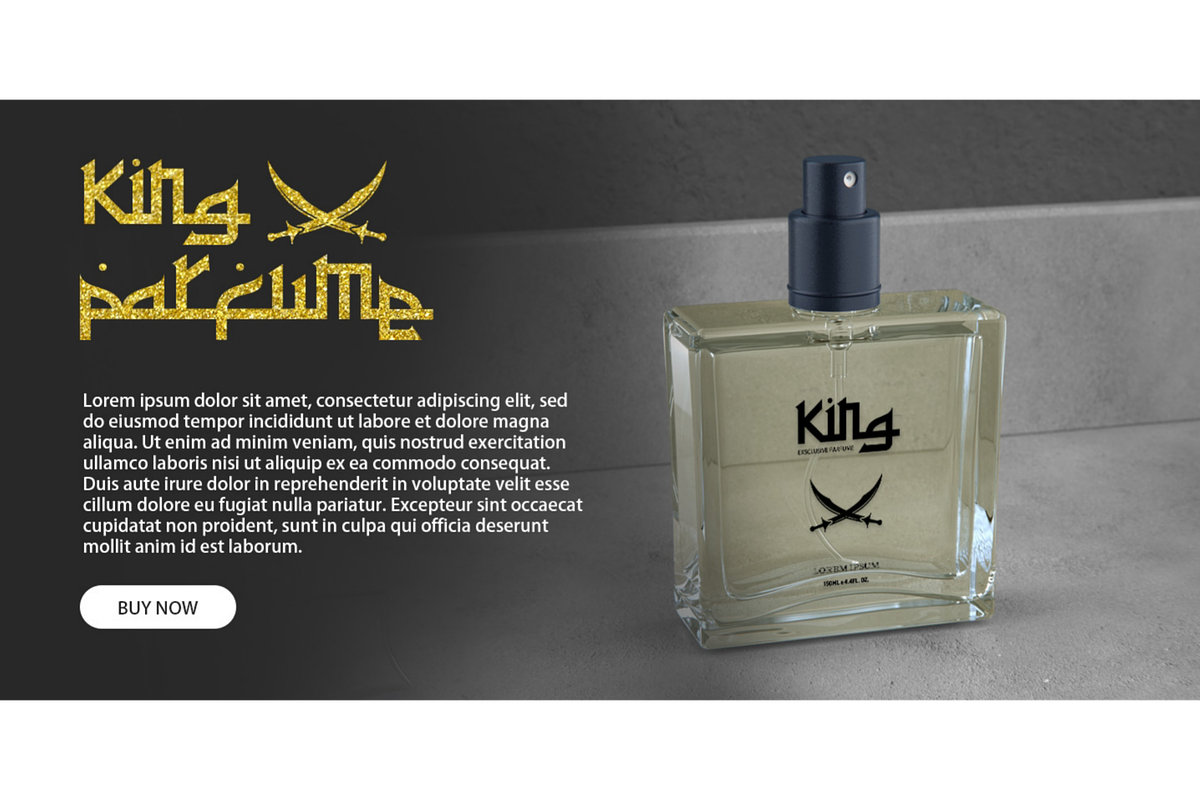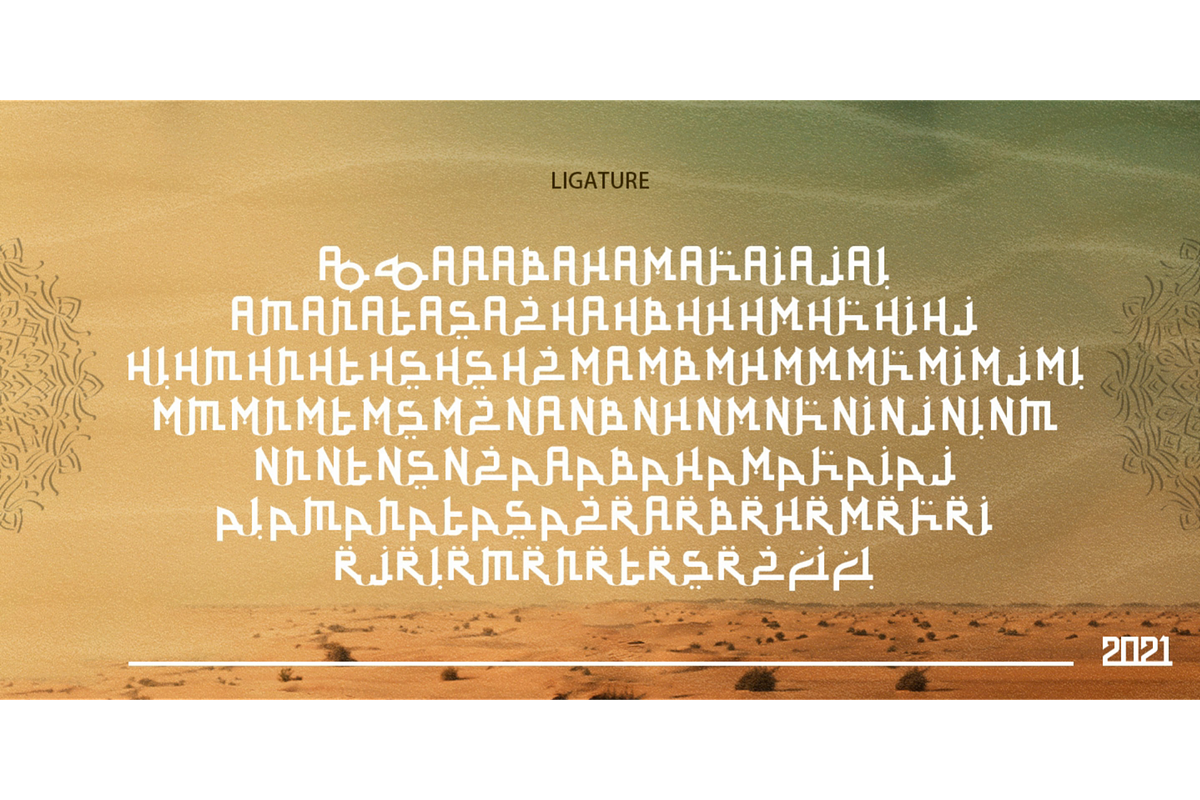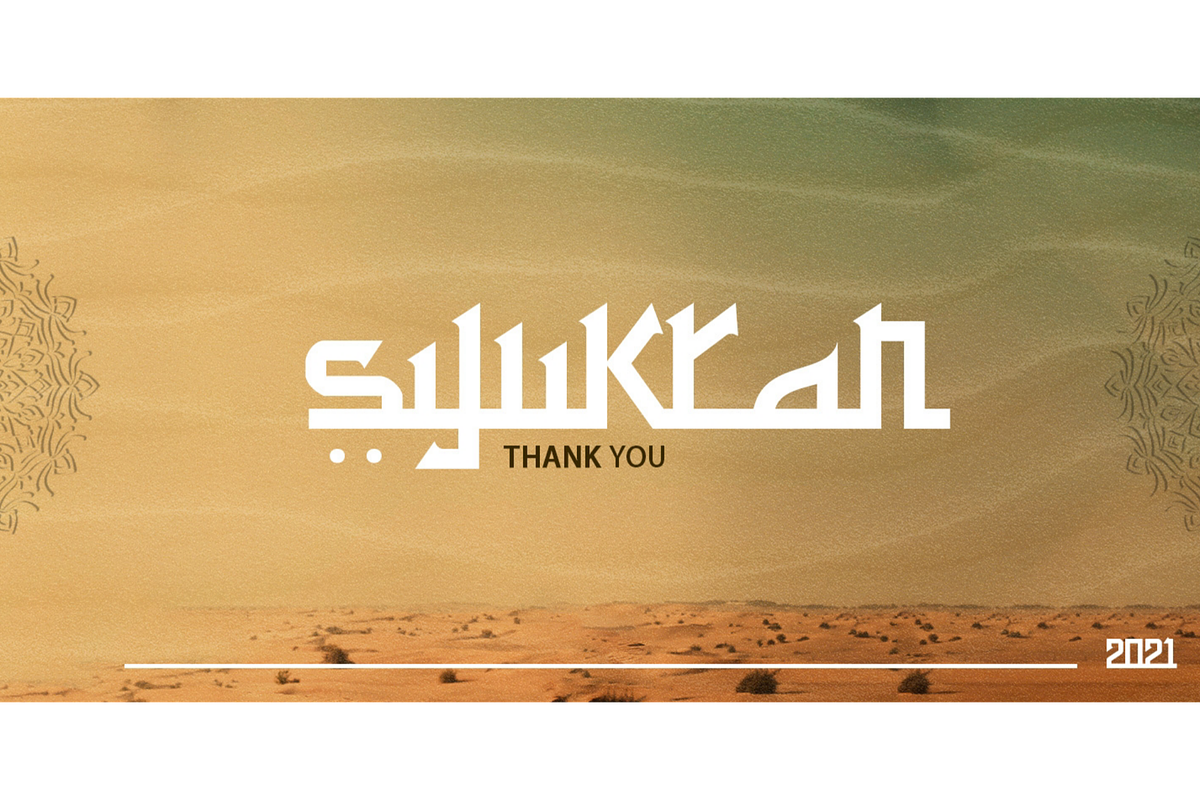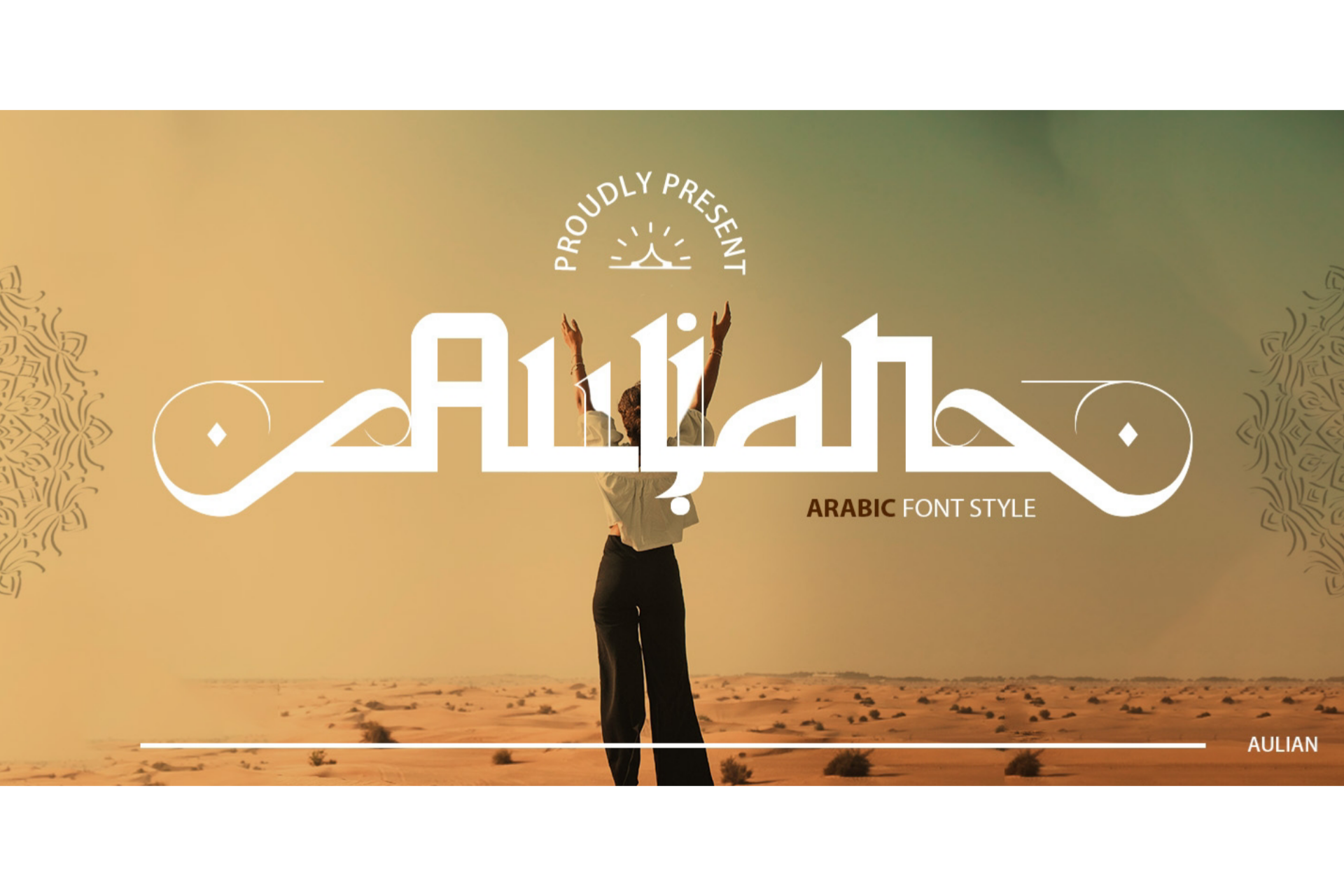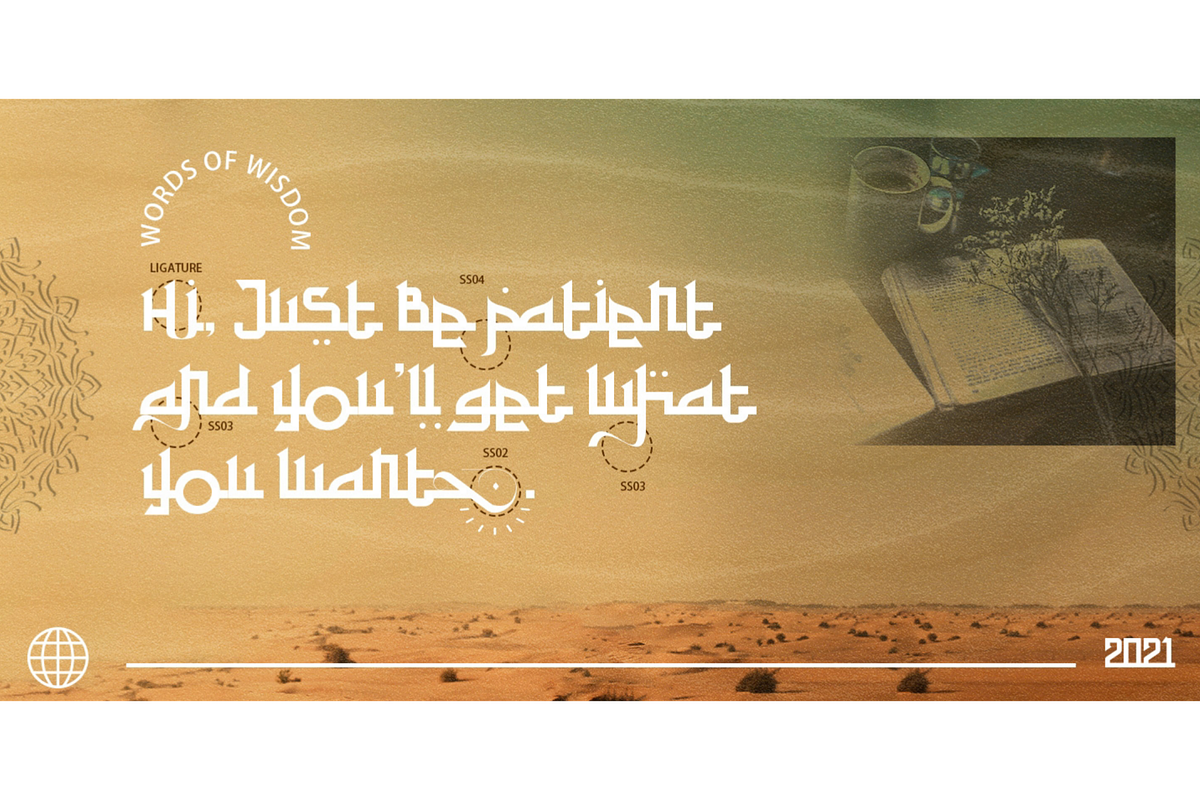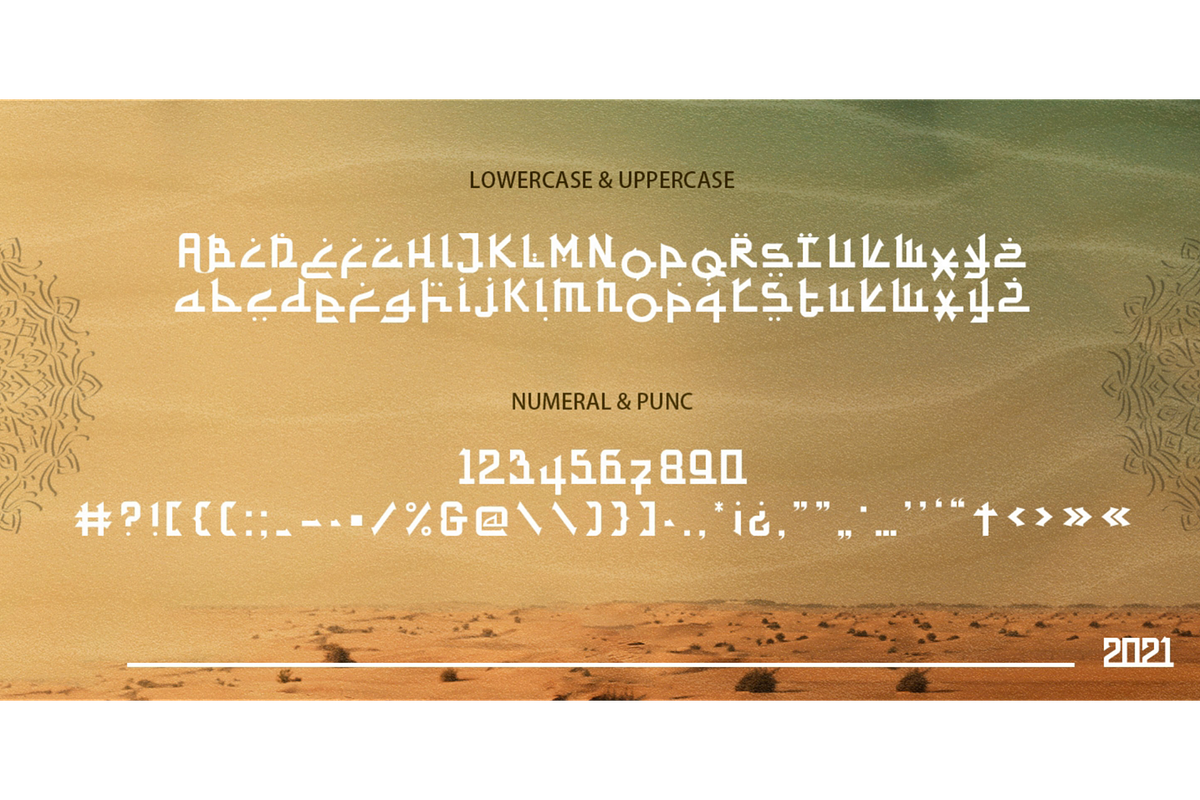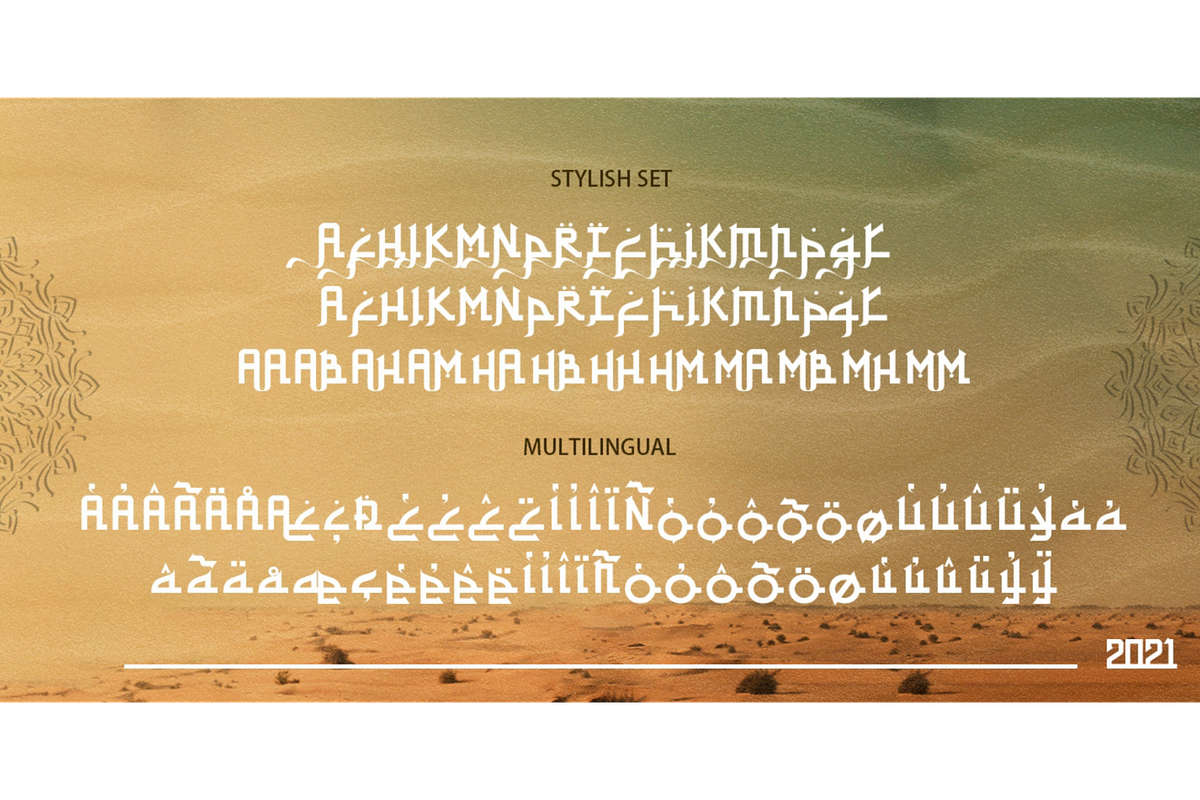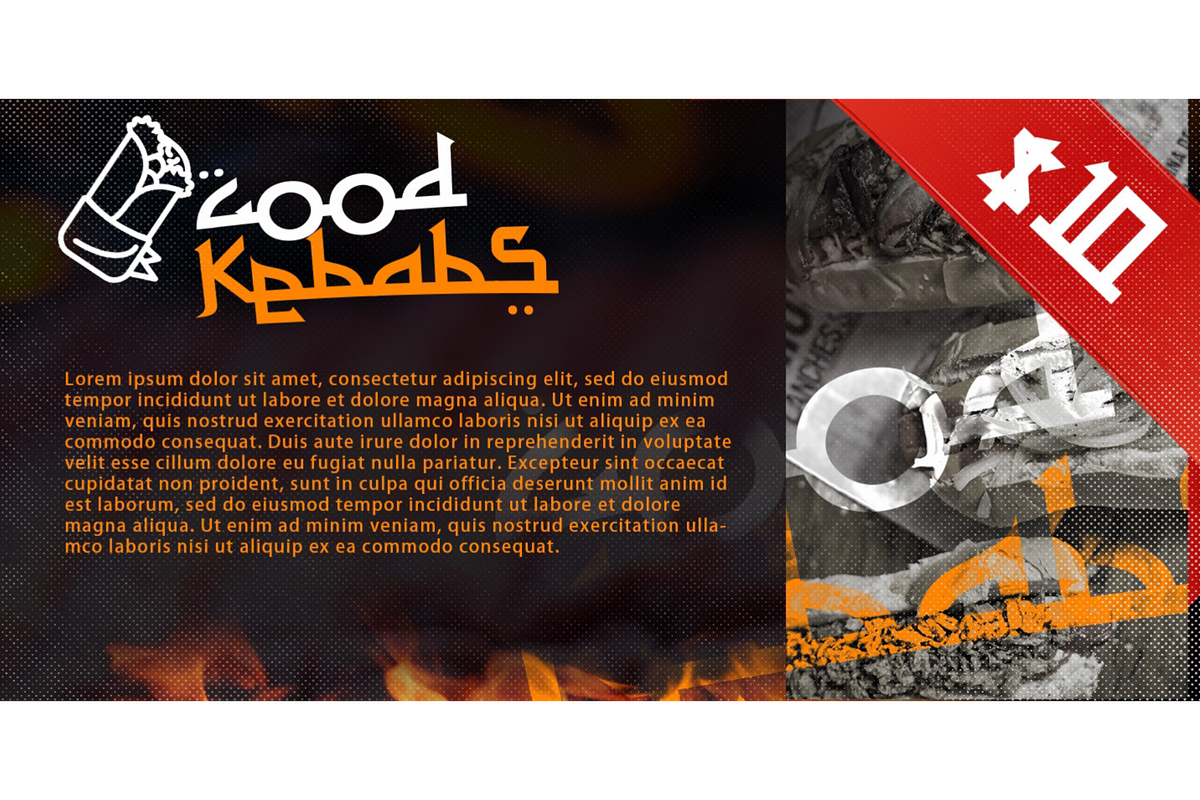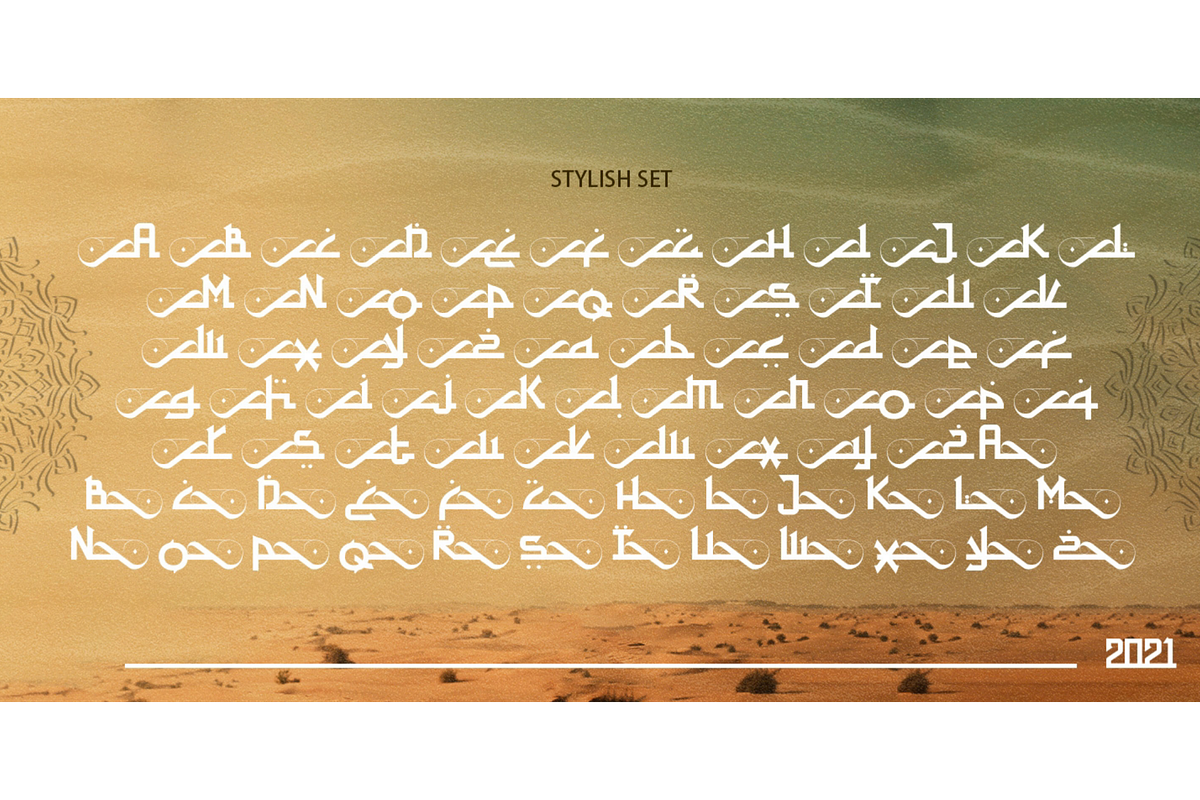
Aulian - Arabic Font
Aulian is an arabic font style made in all characters in uppercase, lowercase, multilingual, ligature, numeric and punc.this typeface with artistic style verym terestingt for loads of different projects and promotions, such as logo, poster, catalogs, advertisement needs, packagingdesign.